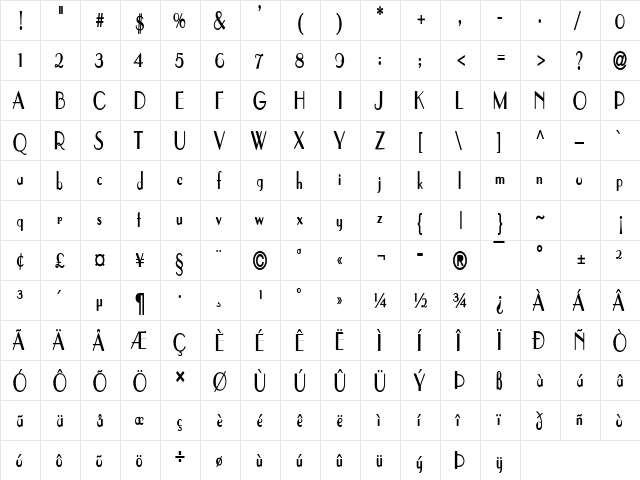
ElyseeCondensed Bold
Design Context for ElyseeCondensed Typeface
ElyseeCondensed offers clean, dependable letterforms without strong stylistic allegiance, making it a practical choice for designers who need flexibility. Its bold stroke weight gives it real presence on the page. The condensed width makes it efficient for tight spaces without sacrificing legibility.